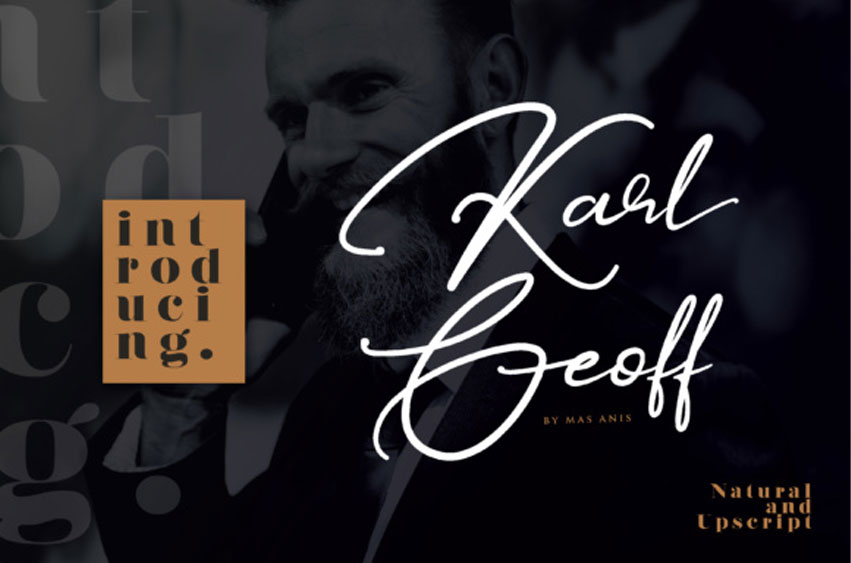
Karl Geoff Font
Karl Geoff Font is a unique and cool looking handwritten script, ideal for use in projects that need an organic and natural style.
This font is great for logotype, and can add an elegant and classy look to your work.